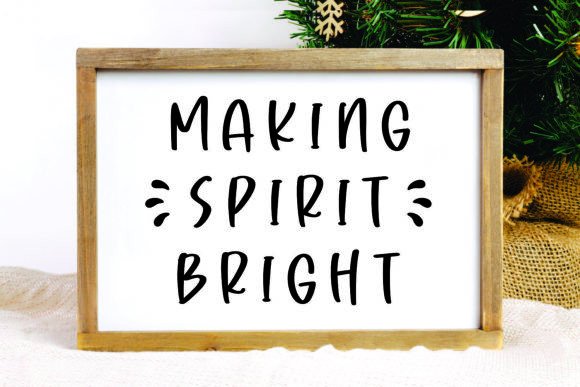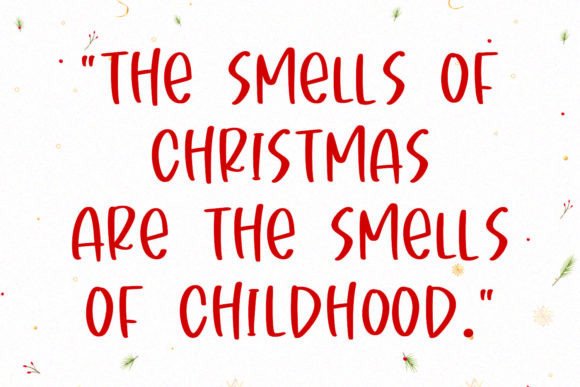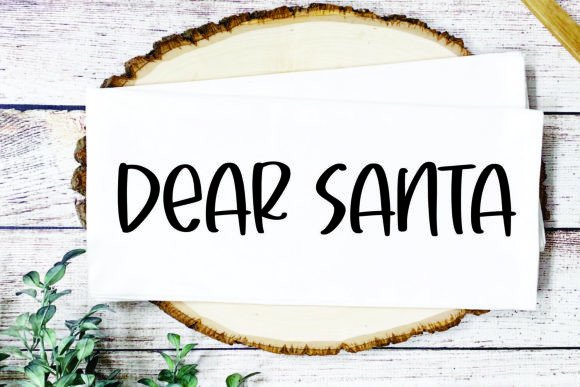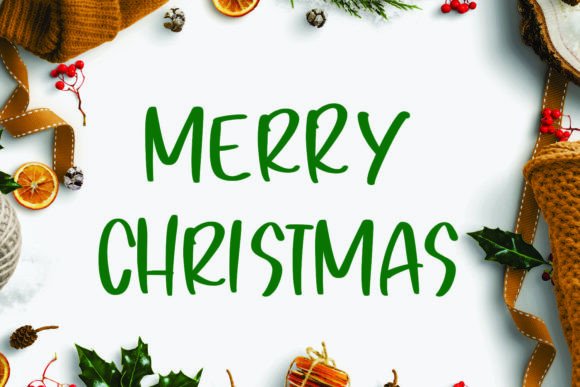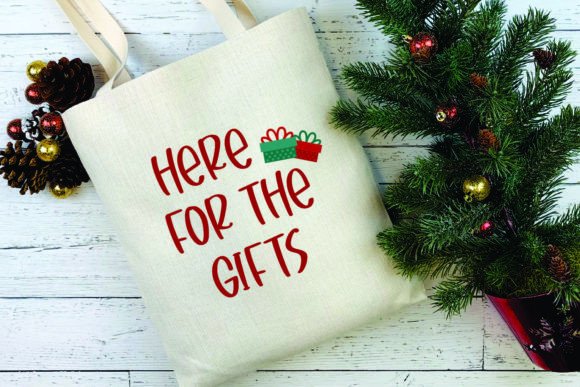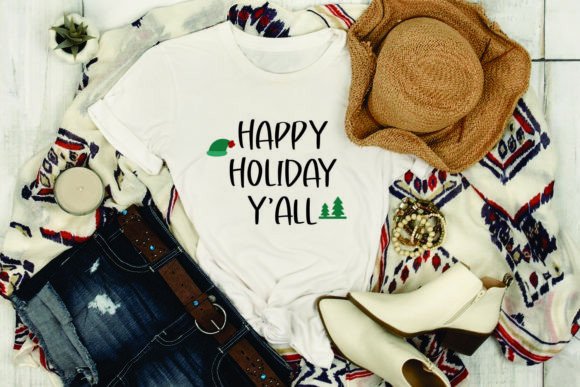
Introducing Bright Font: The Sweet and Quirky Display Font for Your Creative Projects
Are you tired of using the same old fonts in your designs? Look no further! Bright Font is a delightful and playful display font that’s sure to add a touch of whimsy to your creative projects. With its chubby characters and lighthearted nature, this typeface is a must-have in your fonts library. In this article, we’ll dive into the features and benefits of Bright Font, and explore how you can use it to elevate your designs.
The Charm of Bright Font
Bright Font is a sweet and quirky display font that’s perfect for designers and crafters looking for a unique and eye-catching typeface. Its dainty and joyful characters are designed to add a romantic and personalized touch to your designs. Whether you’re creating wedding invitations, greeting cards, or social media graphics, Bright Font is the perfect choice.
One of the standout features of Bright Font is its chubby characters. Unlike traditional fonts that can look thin and delicate, Bright Font’s characters are rounded and playful, giving your designs a friendly and approachable feel. The font’s lighthearted nature makes it perfect for designs that require a touch of whimsy and fun.
Perfect for Romantic and Personalized Designs
Bright Font is ideal for designs that require a romantic and personalized touch. Its dainty and joyful characters make it perfect for:
- Social media graphics and quotes
Whether you’re a designer or a crafter, Bright Font is a versatile typeface that can be used in a variety of creative projects. Its unique and eye-catching characters will help your designs stand out from the crowd and leave a lasting impression.
Why Choose Bright Font?
So why choose Bright Font over other display fonts? Here are just a few reasons:
- Unique and eye-catching characters: Bright Font’s chubby characters are unlike any other font on the market. They add a touch of whimsy and fun to your designs, making them perfect for creative projects.
- Lighthearted and playful nature: Bright Font’s lighthearted nature makes it perfect for designs that require a friendly and approachable feel.
- Versatile and easy to use: Bright Font is a versatile typeface that can be used in a variety of creative projects. It’s easy to install and use, making it perfect for designers and crafters of all levels.
Tips for Using Bright Font
Here are a few tips for using Bright Font in your designs:
- Use it as a display font: Bright Font is perfect for headlines and titles. Use it to add a touch of whimsy and fun to your designs.
- Pair it with other fonts: Bright Font pairs well with other fonts, such as serif and sans-serif fonts. Experiment with different font combinations to create unique and eye-catching designs.
- Experiment with colors and textures: Bright Font looks great in a variety of colors and textures. Experiment with different colors and textures to add depth and interest to your designs.
Bright Font is a sweet and quirky display font that’s perfect for designers and crafters looking for a unique and eye-catching typeface. Its chubby characters and lighthearted nature make it perfect for designs that require a romantic and personalized touch. With its versatility and ease of use, Bright Font is a must-have in your fonts library. So why wait? Download Bright Font today and start creating beautiful and eye-catching designs!